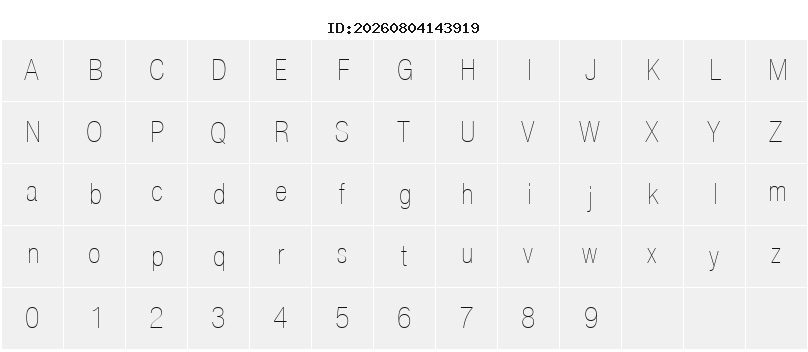
NimbusSanNovTUltLigCon Preview
• Font Name: NimbusSanNovTUltLigCon
• Font ID: URW:NimbusSanNovT-UltrLighCond:1994
• Full Font Name: NimbusSanNovTUltLigCon
• PostScript Name: NimbusSanNovT-UltrLighCond
About NimbusSanNovTUltLigCon.ttf
NimbusSanNovTUltLigCon.ttf is a modern, elegant sans-serif font designed for ultimate readability and visual harmony. Perfect for branding, headlines, web design, and print materials.